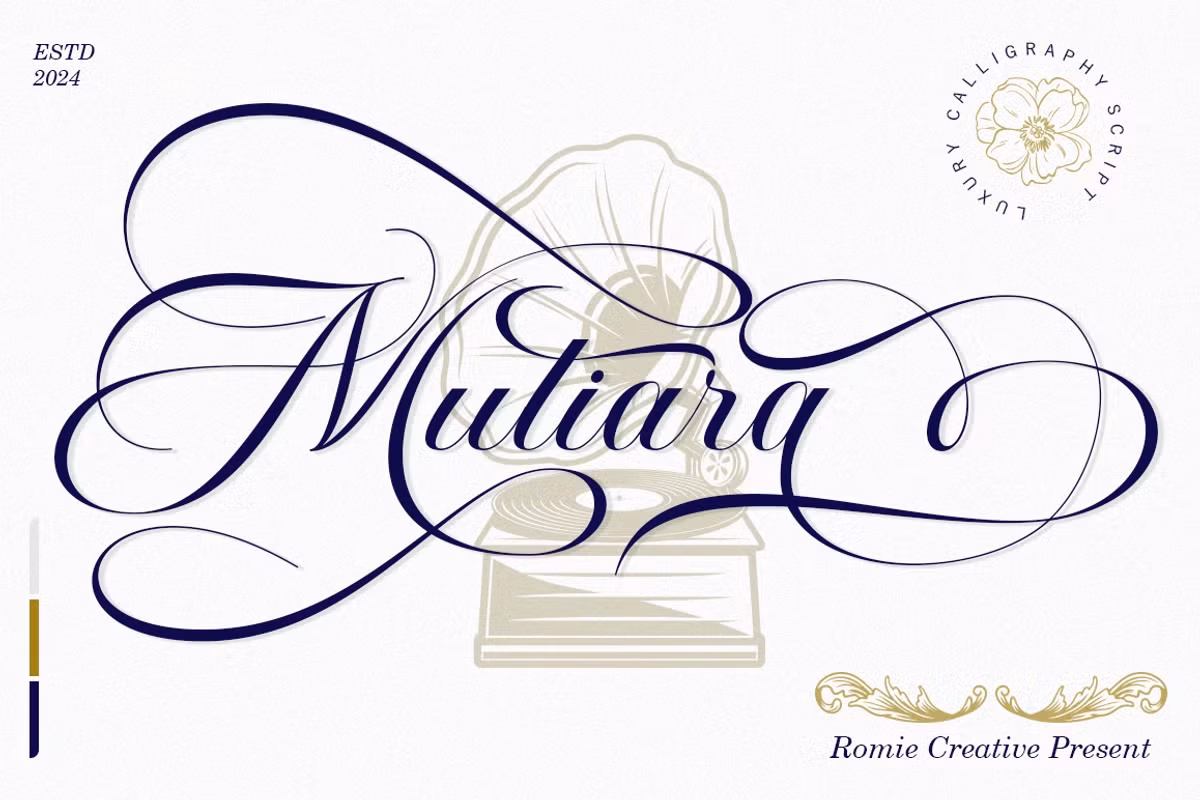
Mutiara Luxury Calligraphy Free Download
Mutiara Luxury Calligraphy Font Free Download
The Mutiara Luxury Calligraphy Font Free Download is an elegant and refined script font designed to add sophistication and luxury to your designs. With its beautiful, flowing letterforms and high-end calligraphy style, this font is perfect for creating logos, invitations, wedding materials, branding, and more. The Mutiara font exudes charm and grace, making it ideal for projects that require a touch of elegance and class. Whether you’re working on upscale event designs, personal branding, or high-end marketing materials, this font will elevate your typography with a timeless, luxurious appeal. Please note, for commercial use, a license purchase is required. However, you can easily download the Mutiara Luxury Calligraphy Font Free Download for free for personal use and explore its versatility. Download the Mutiara Luxury Calligraphy Font Free Download today and bring a sophisticated touch to your creative projects.